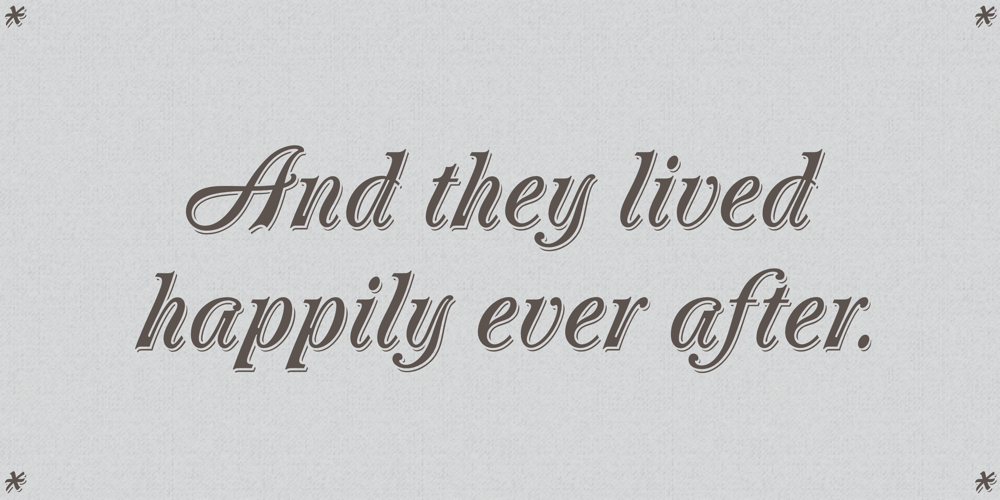
Oberon Font Family was designed by Phill Grimshaw and published by ITC. Oberon contains 1 styles and family package options. Oberon is the work of British designer Phill Grimshaw. It has a touch of the 1970s about it and includes a number of alternative lowercase letters and ligatures. Oberon is a free-flowing, elegantly casual typeface.